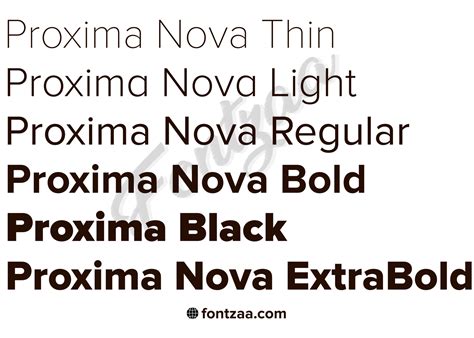
Google Font Like Proxima Nova. Web 4 google fonts similar to proxima nova. Web making the web more beautiful, fast, and open through great typography
Web 4 google fonts similar to proxima nova. It has a distinctively elegant design that. It is a good inbetween font for futura and. Web making the web more beautiful, fast, and open through great typography Web proxima nova is one of the most popular fonts used in branding designs. Proxima nova is a rework of proxima sans.
Proxima nova is a rework of proxima sans. Web making the web more beautiful, fast, and open through great typography It is a good inbetween font for futura and. It has a distinctively elegant design that. Web 4 google fonts similar to proxima nova. Web proxima nova is one of the most popular fonts used in branding designs.